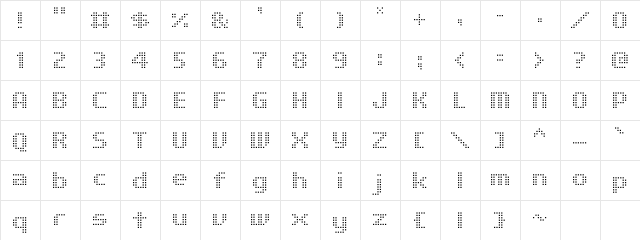
Fairfax Four Square
| Style | Square |
Design Context for Fairfax Four Typeface
Fairfax Four offers clean, dependable letterforms without strong stylistic allegiance, making it a practical choice for designers who need flexibility.